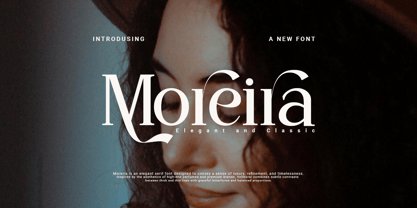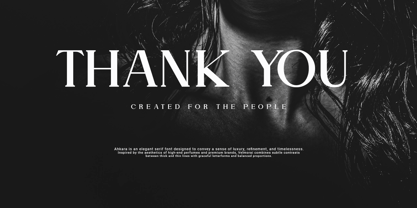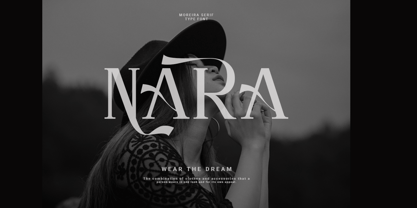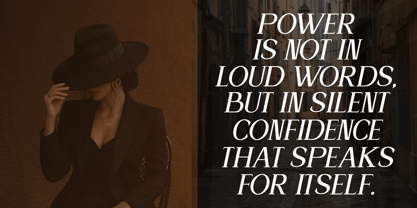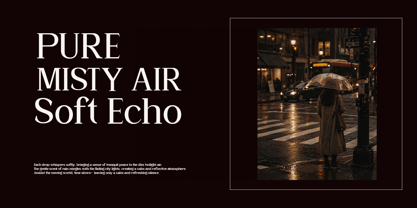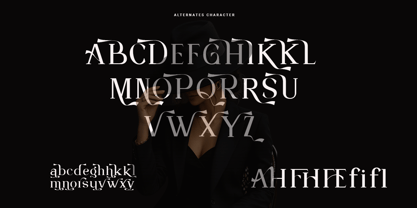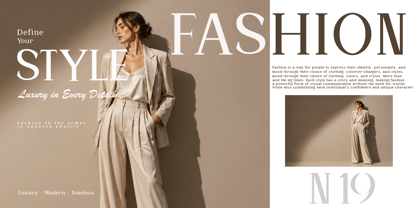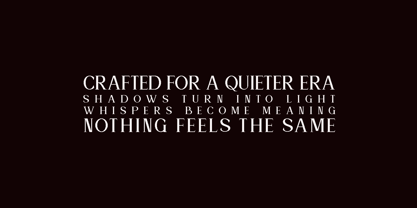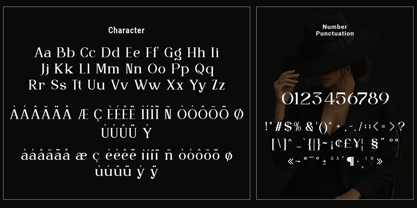
Moreira
by Agung Sudirman
The Moreira Font Family was designed by Agung Sudirman and published by Agung Sudirman. Moreira contains 2 styles and family package options. More about this family
Moreira is an elegant serif typeface crafted to express timeless beauty and refined character. Inspired by classic European typography with a modern touch, this font blends sharp serifs, balanced proportions, and graceful curves to create a luxurious visual presence.
Designed for branding, editorial layouts, logos, and high-end packaging, Moreira delivers a sophisticated tone that enhances readability while maintaining a distinctive personality. Each letterform is carefully constructed to ensure harmony, consistency, and aesthetic precision.
Moreira is perfect for projects that demand elegance, confidence, and a premium feel — from fashion brands and perfume packaging to wedding designs and creative portfolios.
Features:
• Uppercase & Lowercase
• Numerals & Punctuation
• Multilingual Support
• Stylistic Alternates (if available)